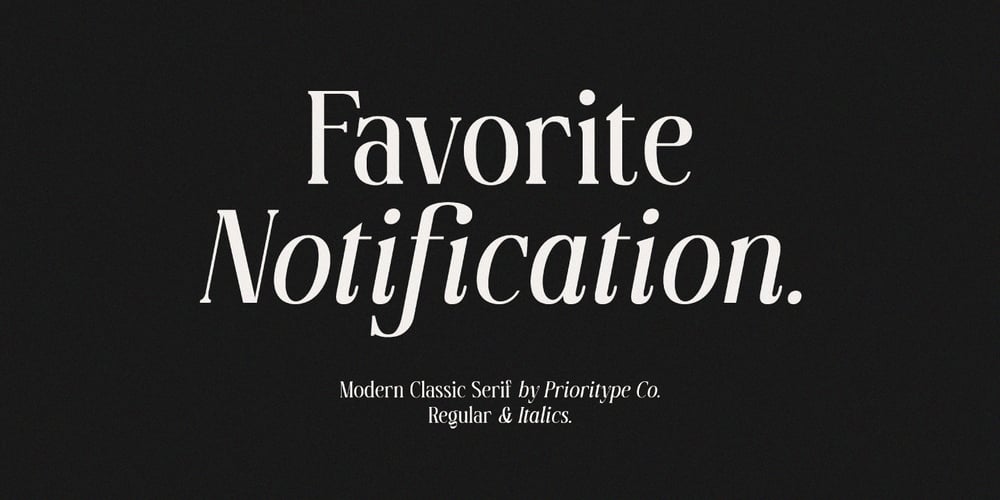
Favorite Notification Font Family was designed by Prio Nurokhim Aji and published by Prioritype. Favorite Notification contains 2 styles and family package options. Introducing a new typeface. Yes, “Favorite Notification” is a modern and classic style serif font. The combination of regular & italic is very pleasing to the eye. It is suitable for branding designs, invitations, magazines and so on. Features: Uppercase Lowercase Numeral Punctuation Multilingual Ligatures Thanks.